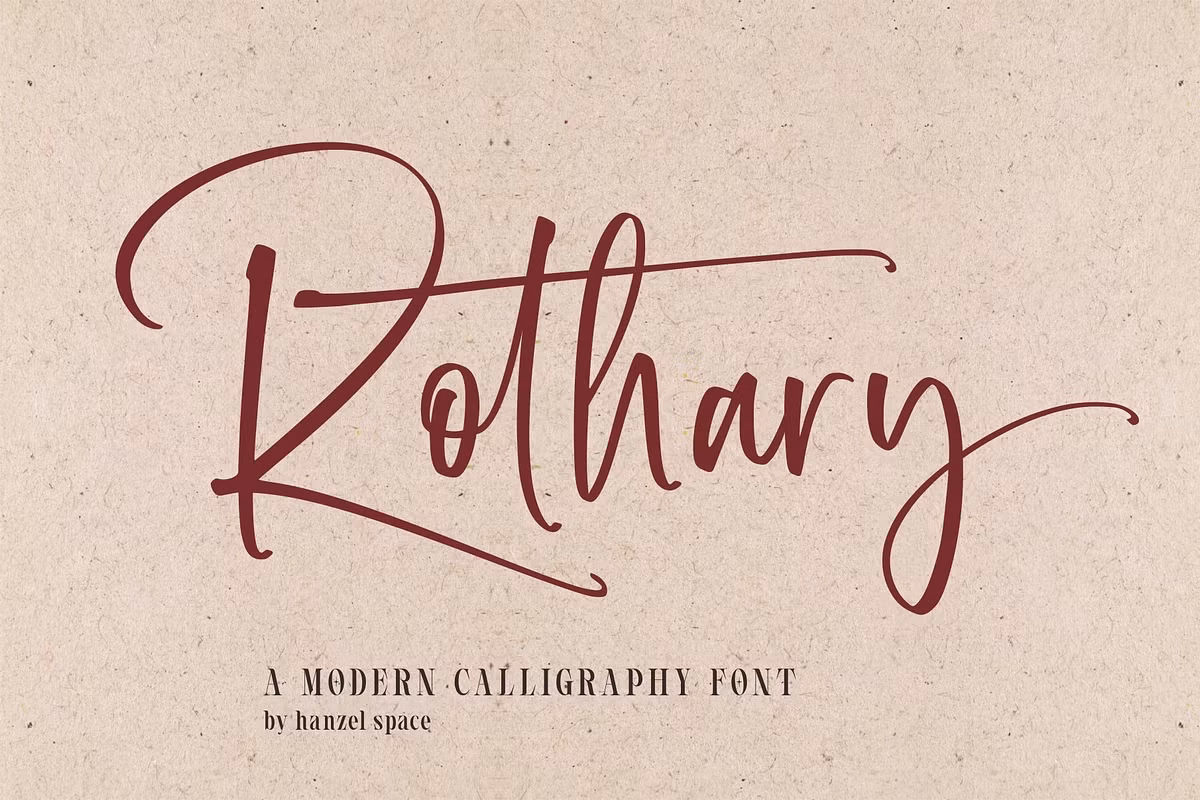
Rothary - Modern Calligraphy Font Free Download
Rothary - Modern Calligraphy Font Free Download is a beautiful and stylish script typeface designed to add elegance and sophistication to your designs. With its smooth, flowing curves and refined letterforms, this font is perfect for creating luxurious logos, invitations, branding materials, and personal stationery. The modern calligraphy style brings a contemporary yet timeless feel, making it ideal for high-end brands, weddings, and creative campaigns. Whether you're crafting a chic brand identity or designing a special event invite, Rothary - Modern Calligraphy Font Free Download allows you to experiment with its graceful style in personal projects before purchasing a commercial license. Add charm and elegance to your designs with this beautifully crafted modern calligraphy font.